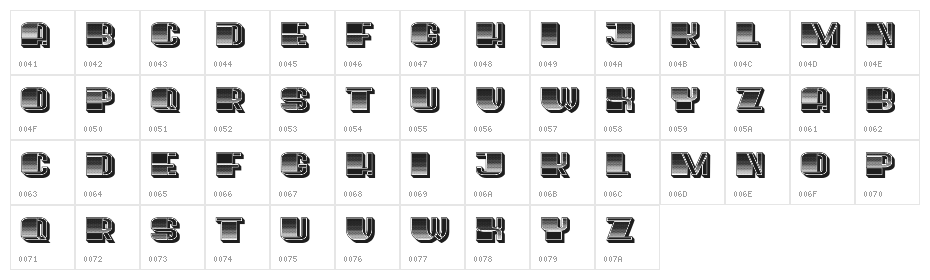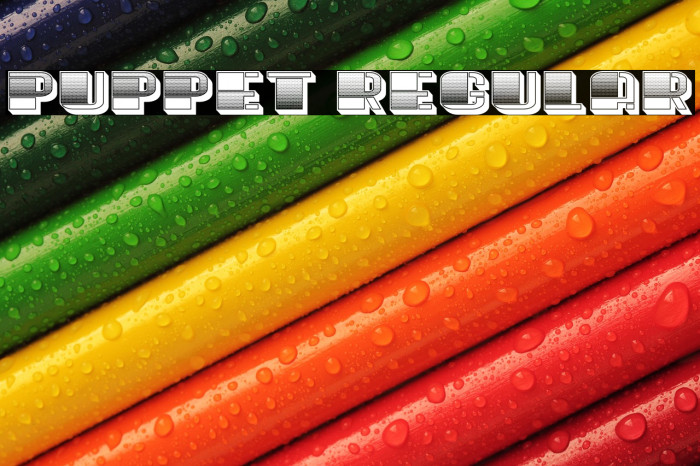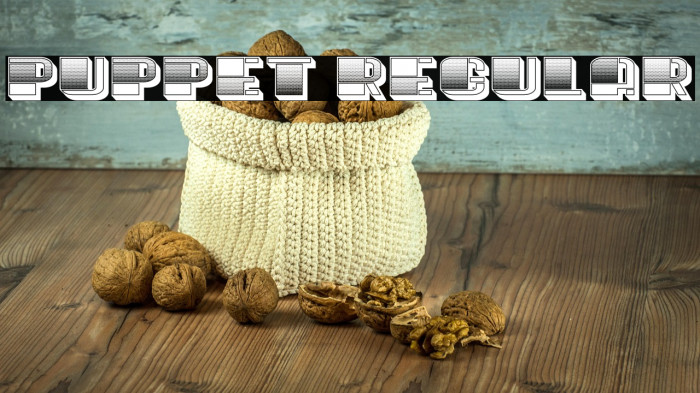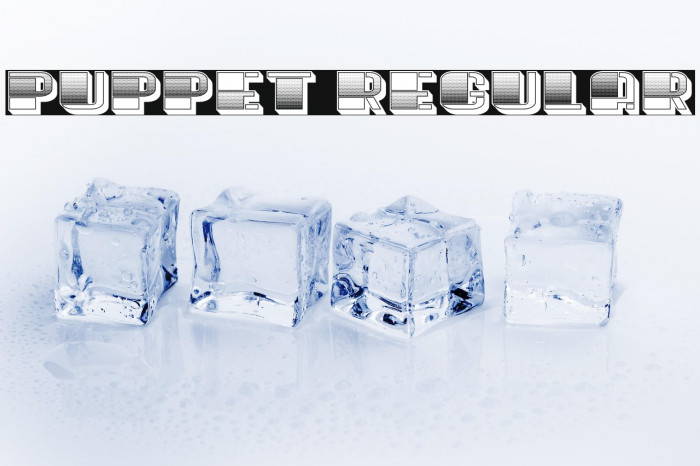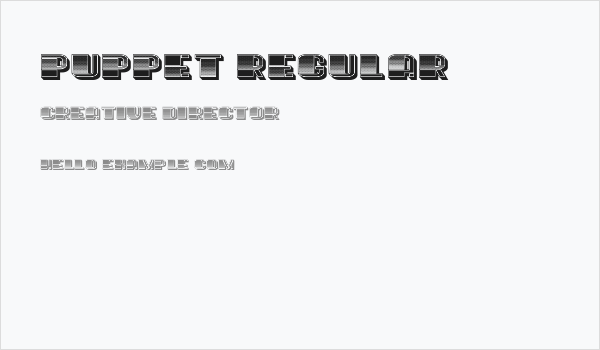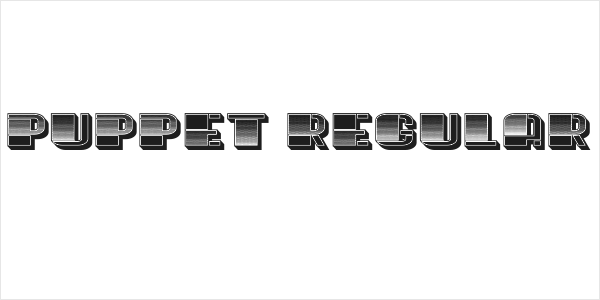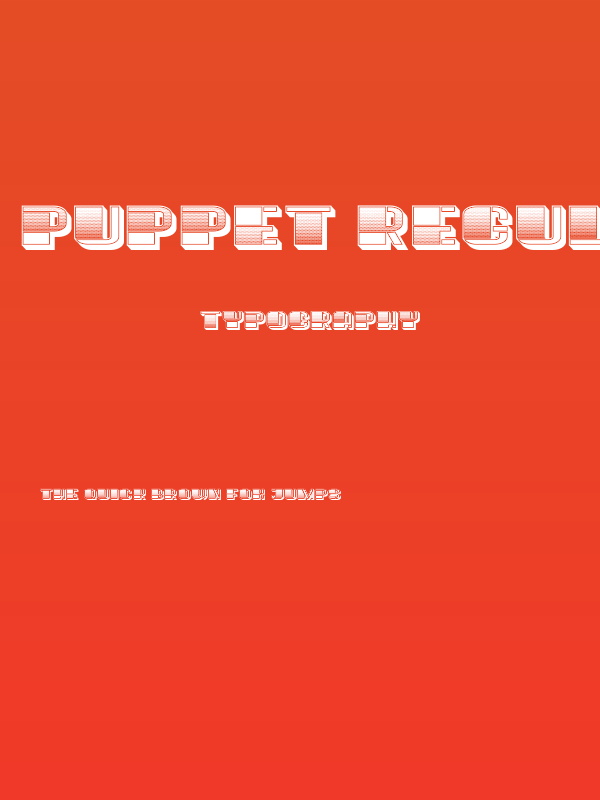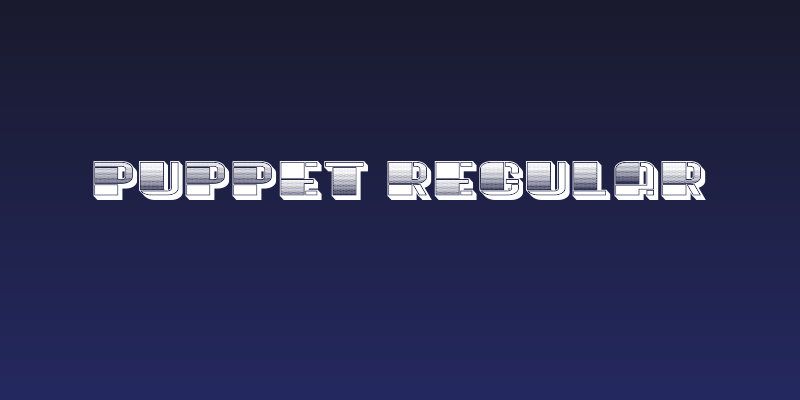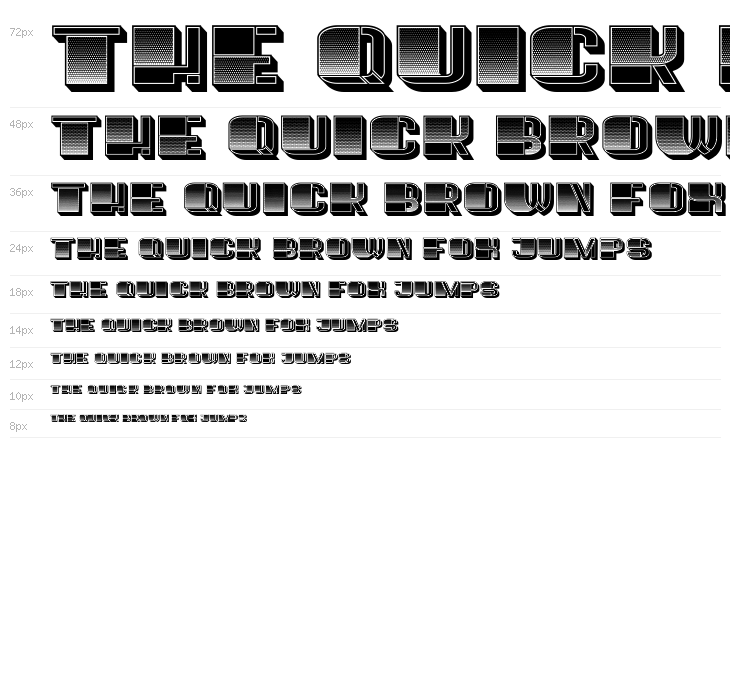
Puppet Regular Font
Puppet Regular Description
This font features a bold, three-dimensional design with a distinct shadow effect that gives it a sense of depth and volume. The characters are uppercase, with a blocky and geometric structure that is both eye-catching and modern. The interior of each letter is filled with a striped pattern, adding texture and visual interest. The font's style is reminiscent of retro or vintage signage, making it ideal for projects that require a bold and impactful statement. Its unique design is suitable for headlines, posters, and other display purposes where a strong visual presence is desired.
| Overall Style | Vintage |
| Use Case | Headlines, Posters, Logos |
| Proposed Projects | Perfect for retro-themed posters, eye-catching headlines, and vintage-inspired branding. |